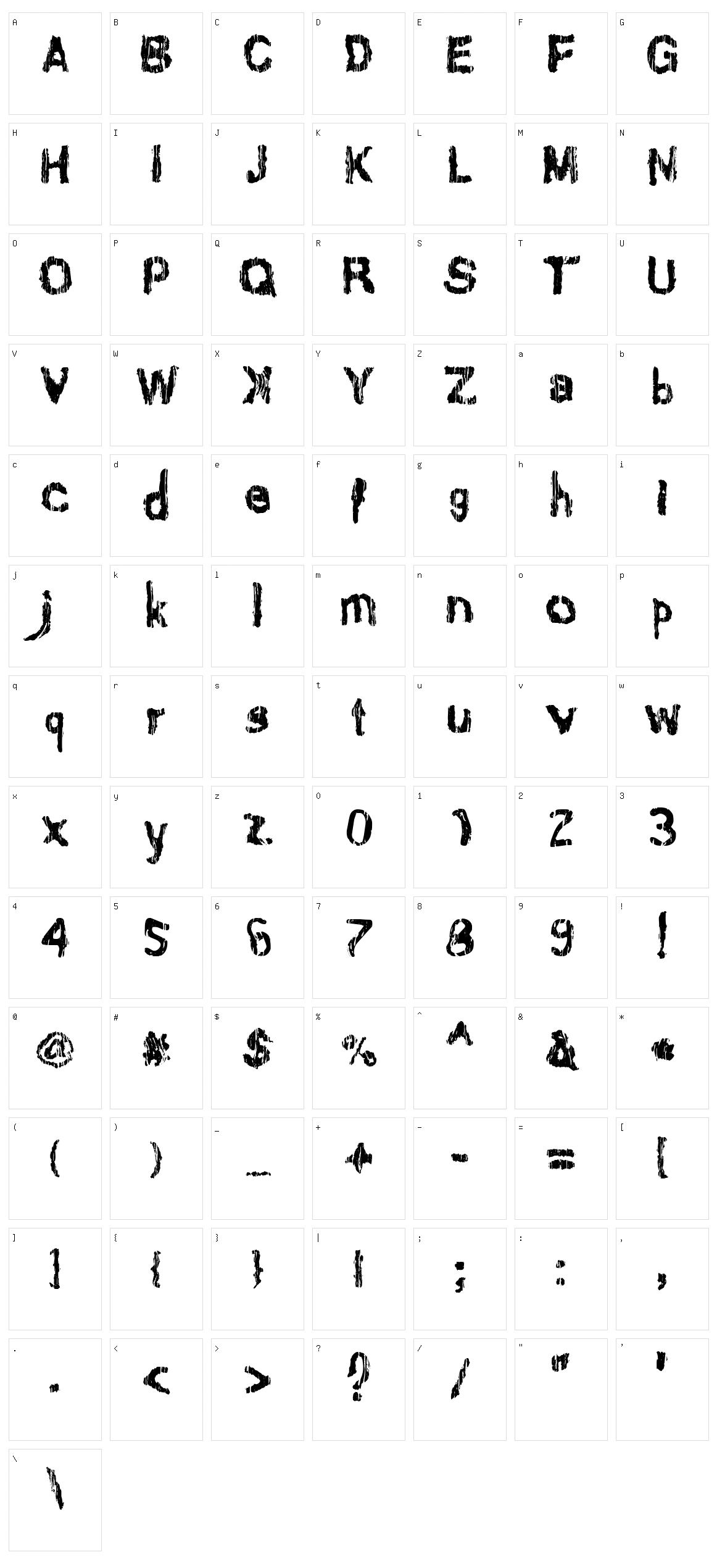
The free font Ashes To Ashes is carefully designed by Samyuli, showcasing a thoughtful balance of creativity and usability and falls under the Trash font style. When you download the ZIP file, it contains only 873.03 KB of font files, making it lightweight and quick to download. Please review the license details below to understand permitted usage and distribution rights. If license information is not available, we recommend using this font for personal projects only or contacting the author directly for commercial usage permissions.